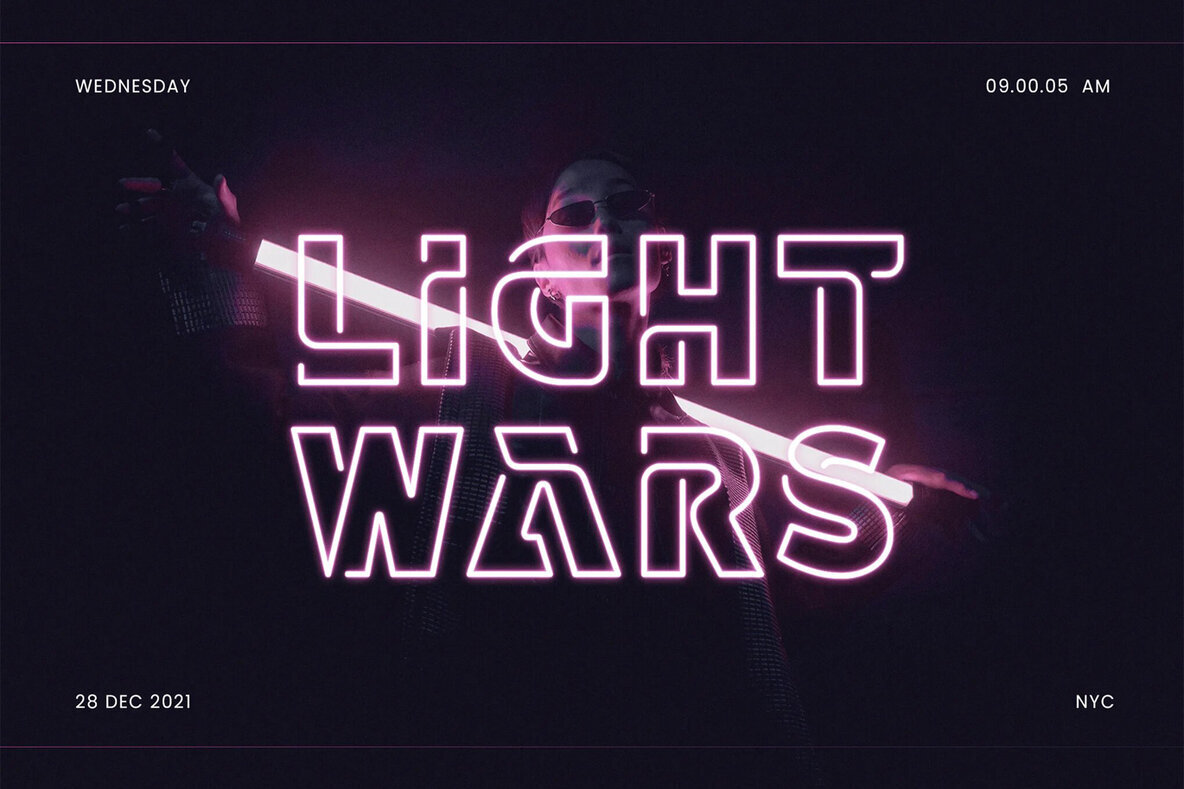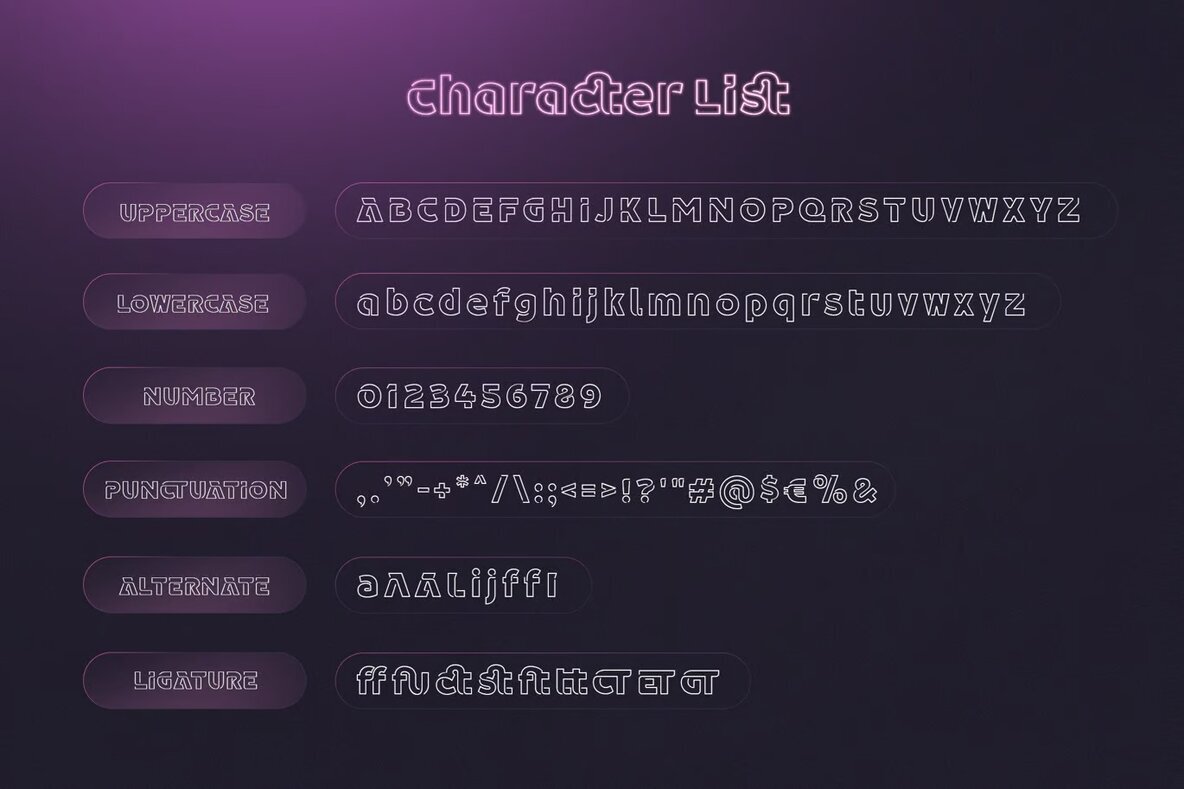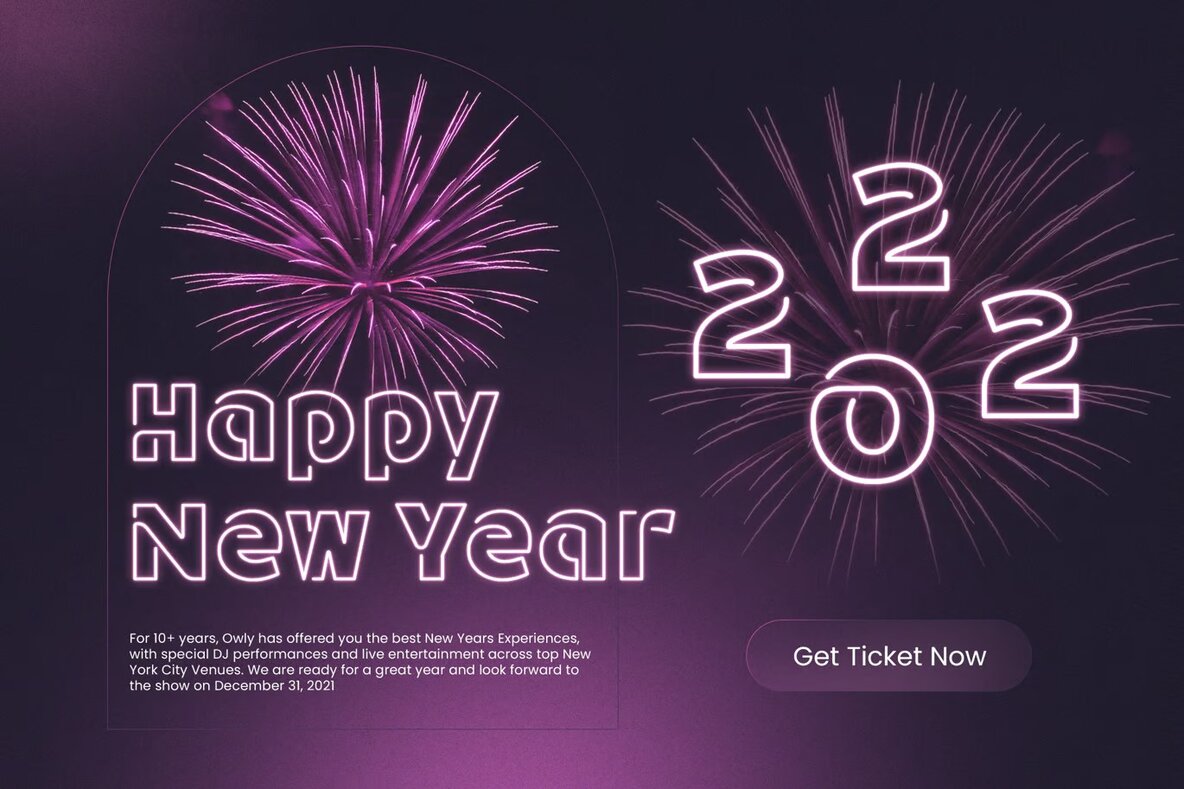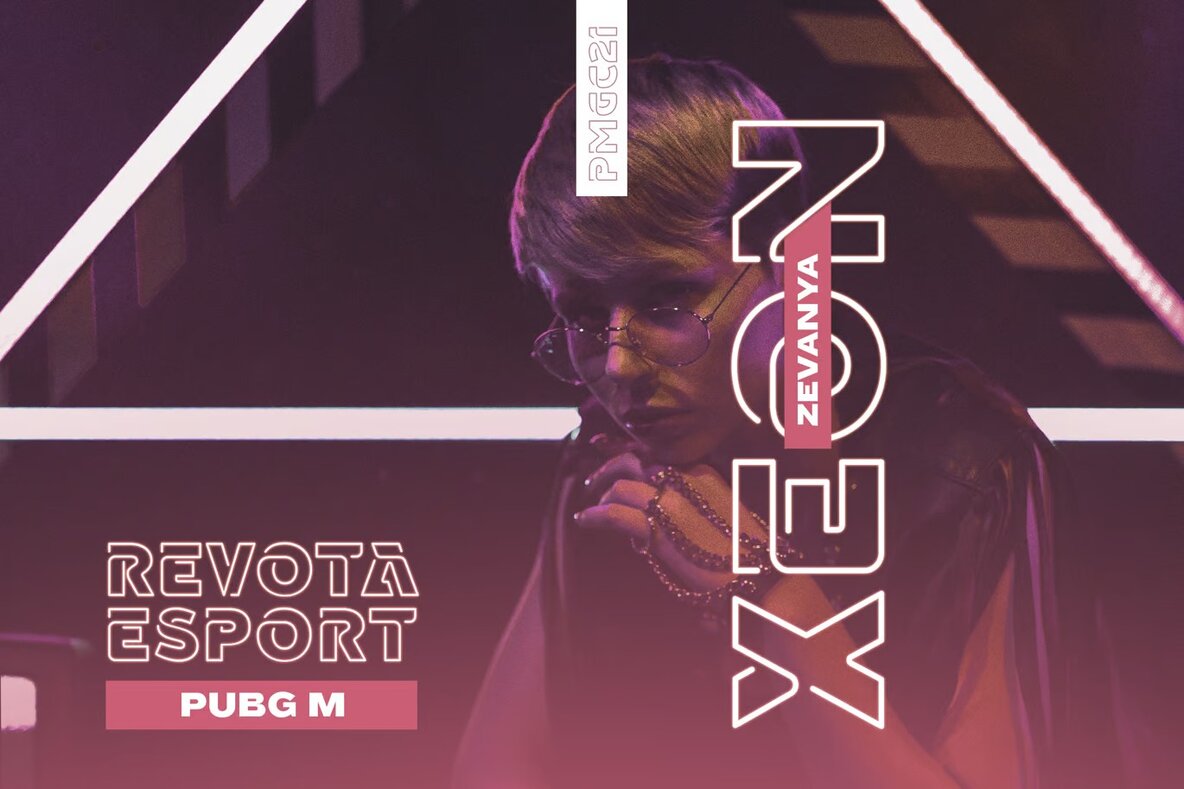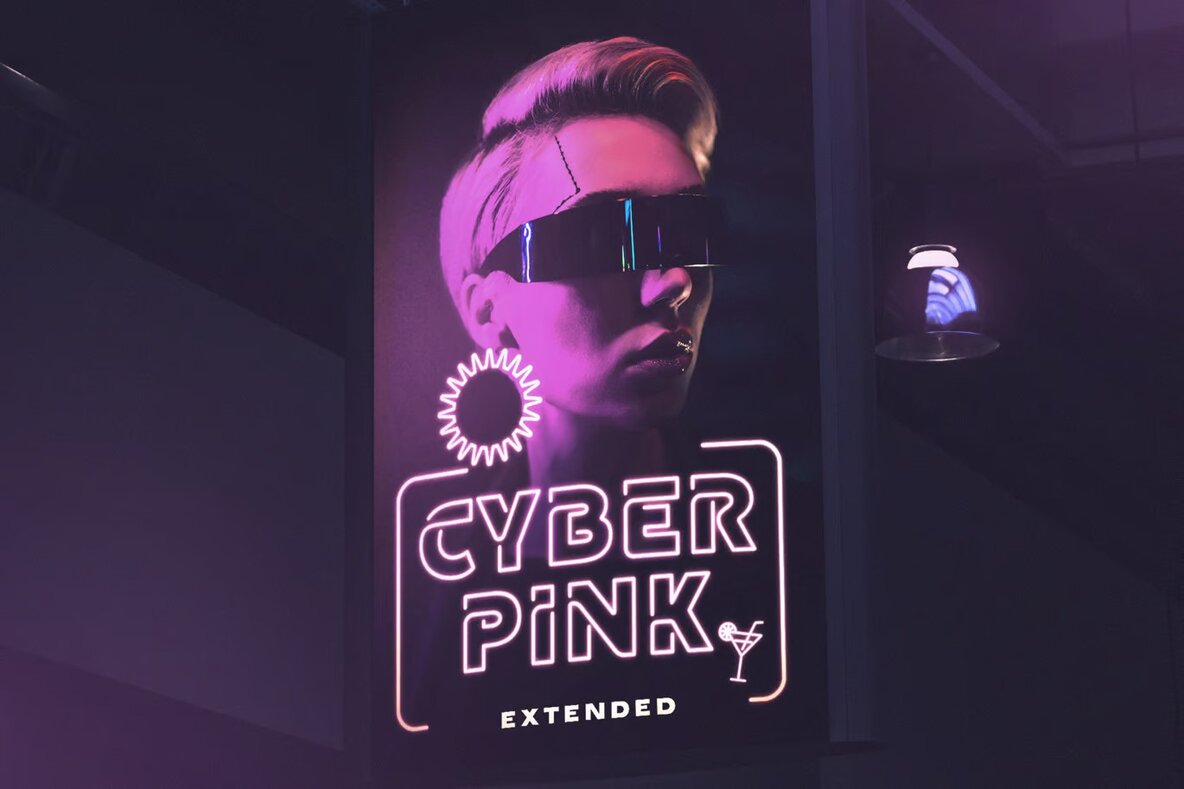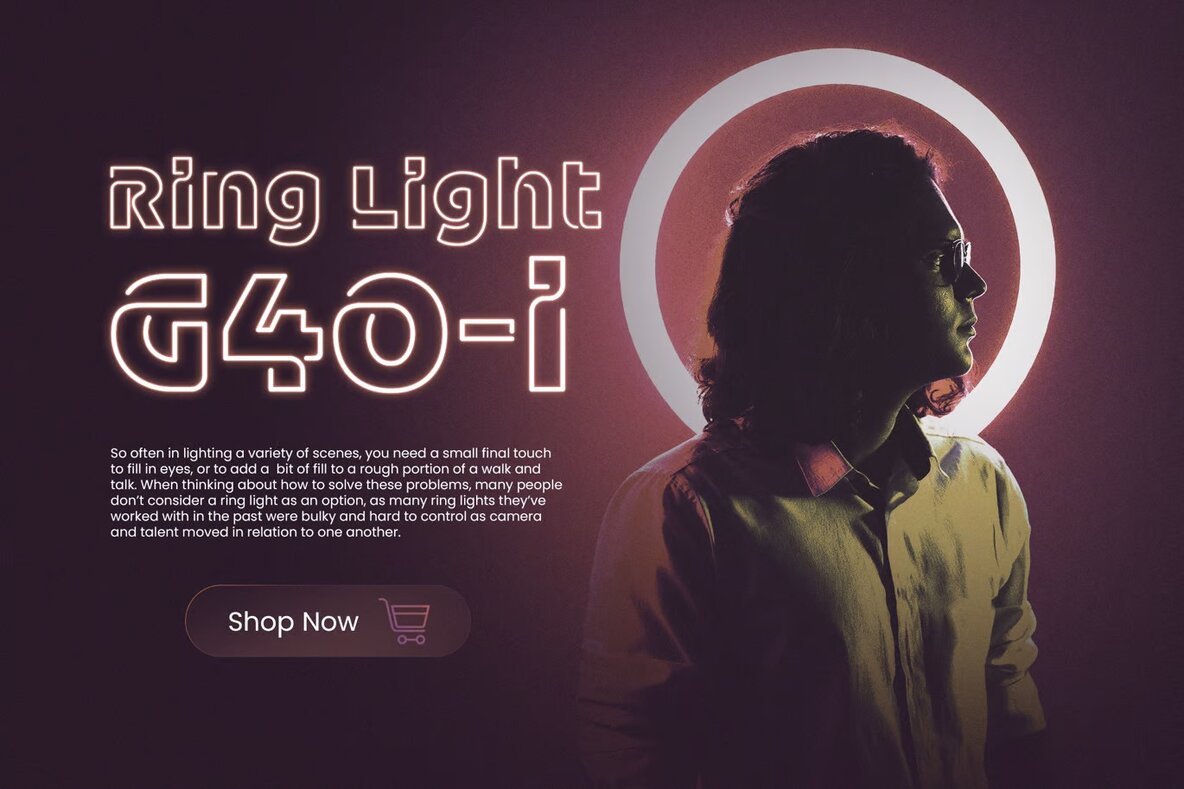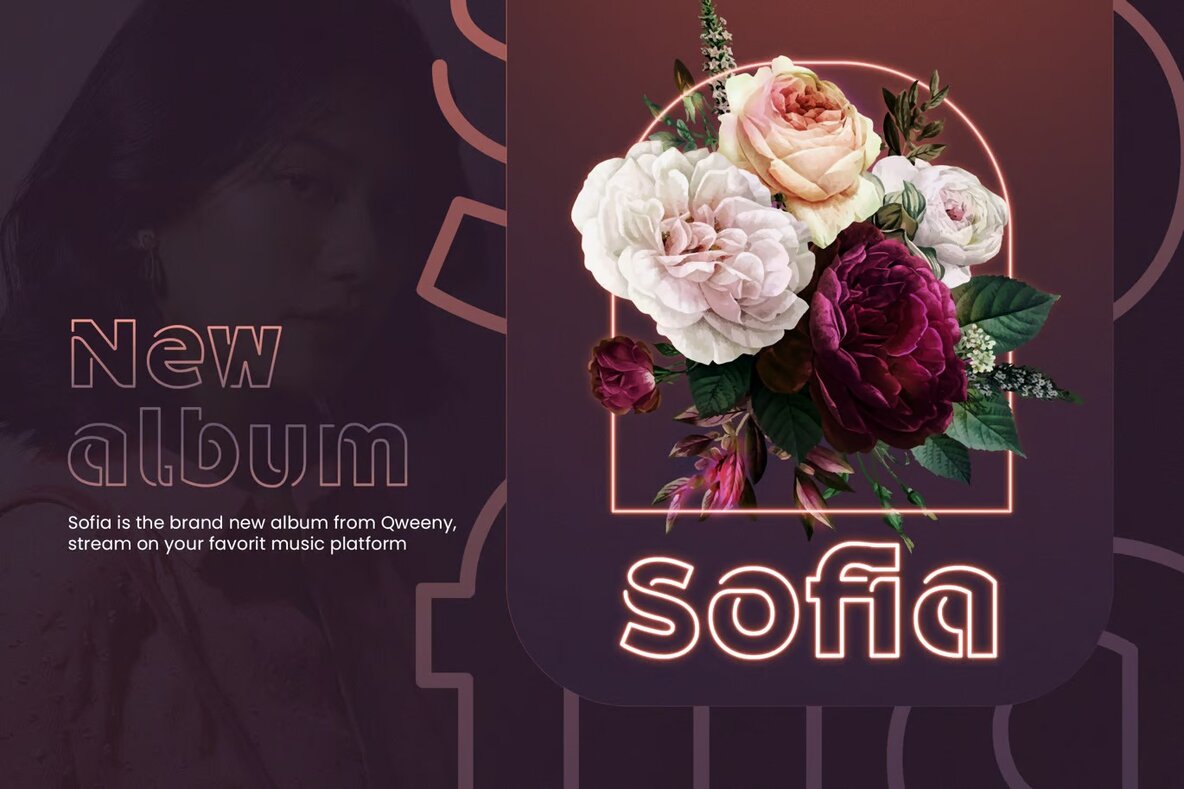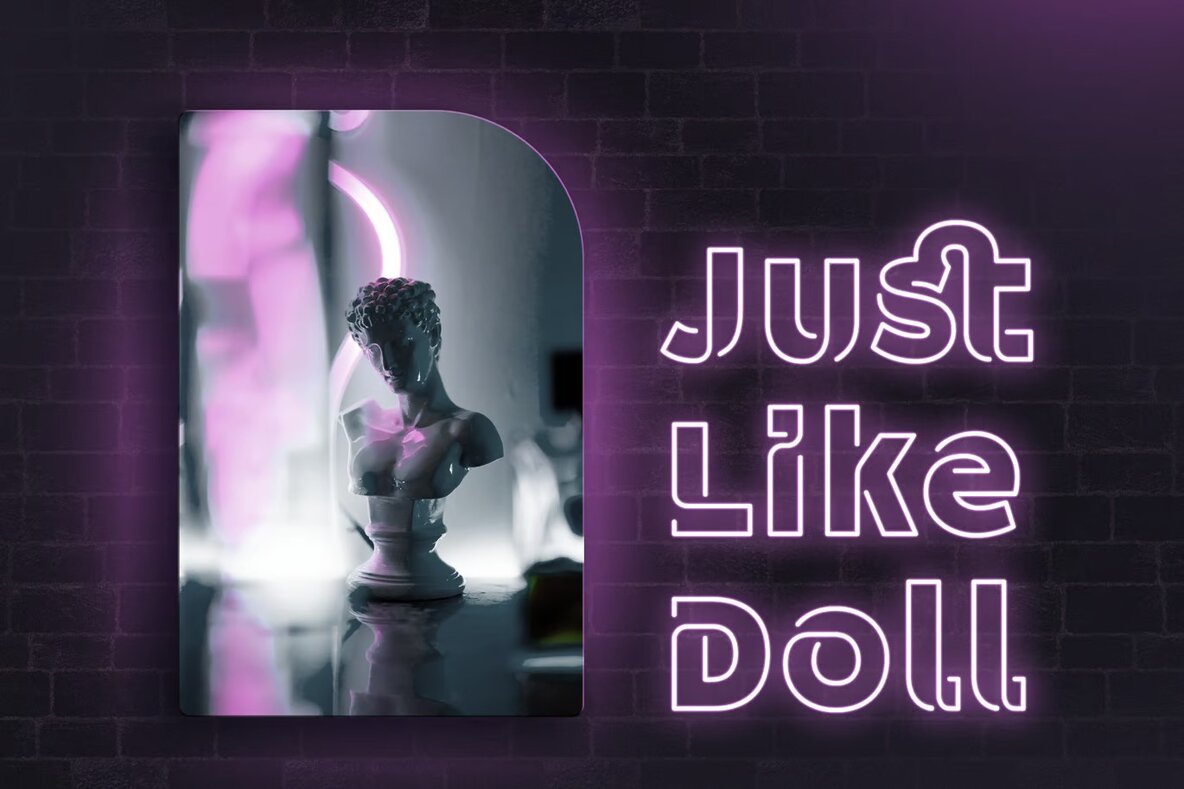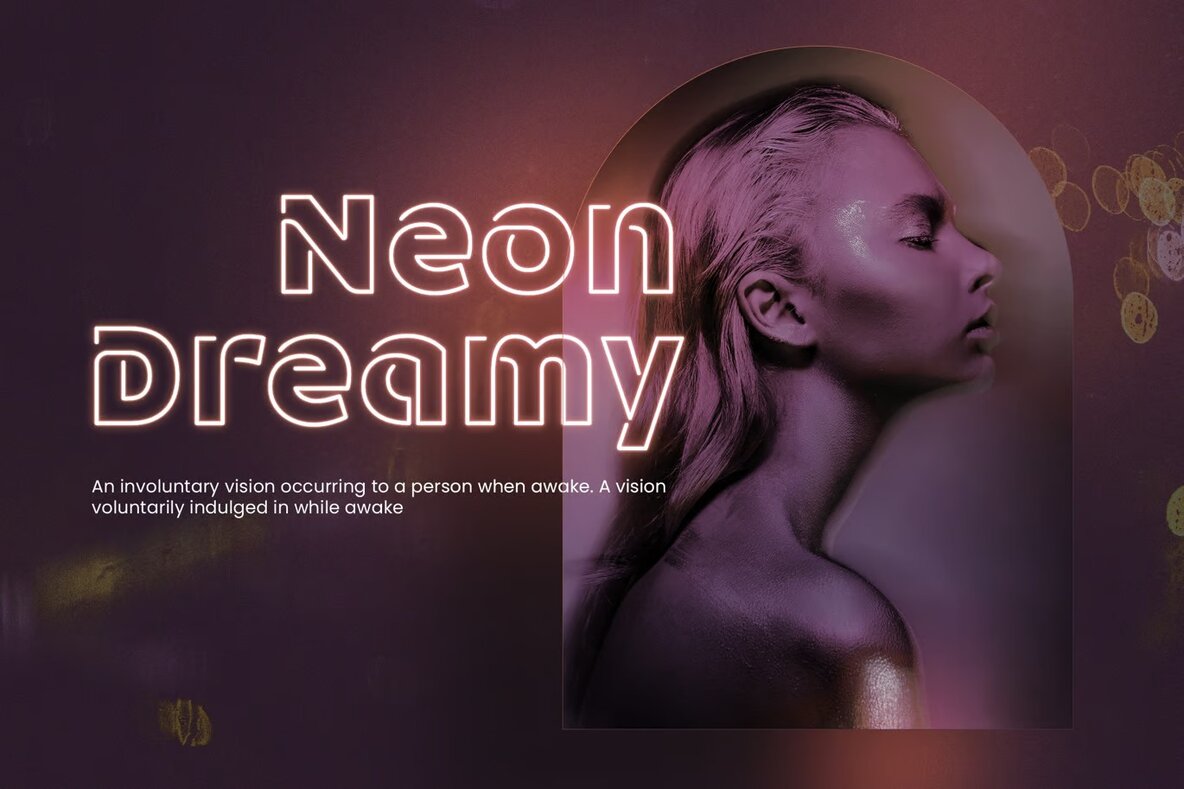
Retake Font
Retake Regular
The Outline Retro Cafe Neon Sign Font is a dynamic and versatile typeface ideal for a wide range of creative projects. Its techno sci-fi display sans style is perfect for crafting unique logo branding, engaging editorial designs, and stylish stationery. Designers looking to capture the spirit of the 80s retro era will find this font invaluable for projects in the sports industry, game development, and music poster creation. Its clean lines and bold presence make it an excellent choice for modern advertising campaigns and contemporary card invitations.
Incorporating this font into art quotes, home décor, or book cover titles will add a distinct flair that stands out in special events design. Its design aesthetic is well-suited for blog designs and other digital platforms where a retro techno vibe is desired. This font's adaptability means it can take center stage in projects requiring an eye-catching and modern touch. Its unique characteristics make it an essential addition to your design toolkit, offering endless opportunities for creativity and innovation.